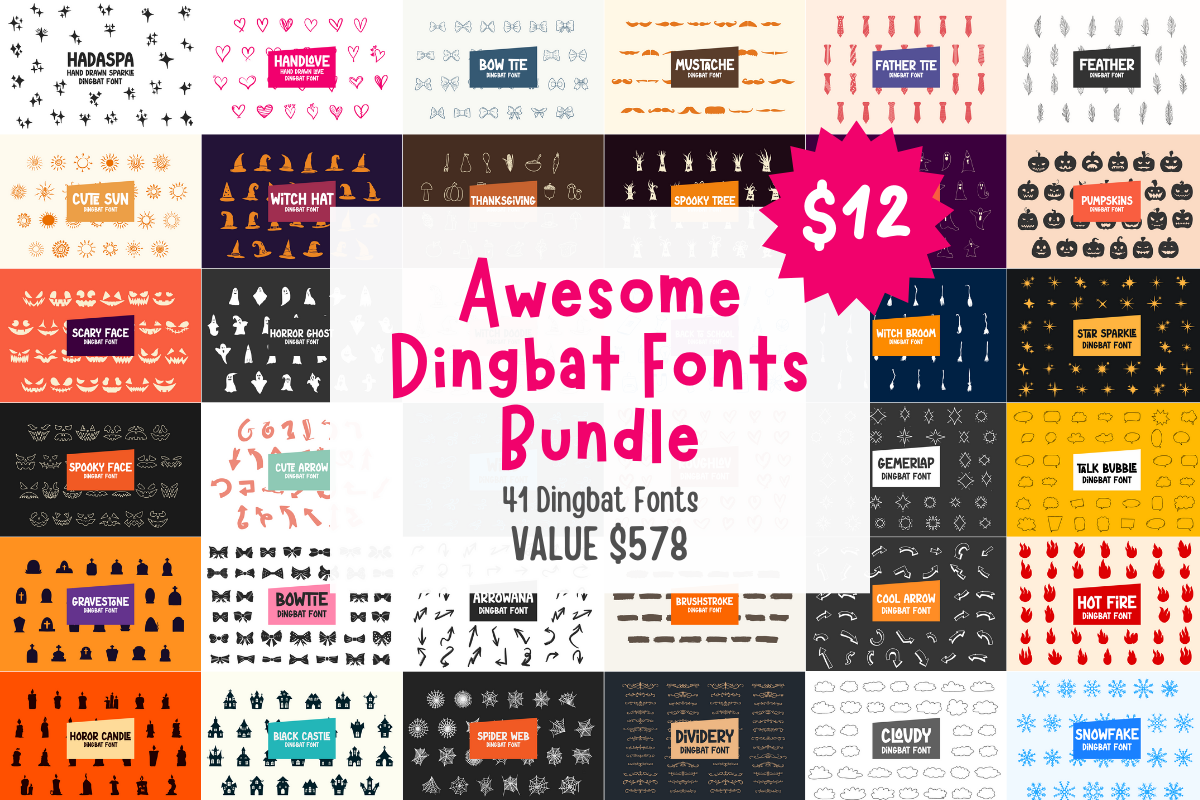
Awesome Dingbat Fonts Bundle Free Download
Awesome Dingbat Fonts Bundle Free Download is a versatile collection of creative dingbat fonts packed with unique symbols, icons, and decorative elements. Ideal for crafting, logos, scrapbooking, packaging, stickers, and digital designs, this bundle gives you endless possibilities to enhance your visuals with hand-drawn style graphics—all in font format! From cute doodles to functional symbols, it’s a designer’s secret weapon.
Get creative with Awesome Dingbat Fonts Bundle Free Download and unlock a fun, artistic toolkit that takes your designs to the next level. Whether you're decorating a label or crafting a custom card, these dingbats make it easy to add flair with just a keystroke.